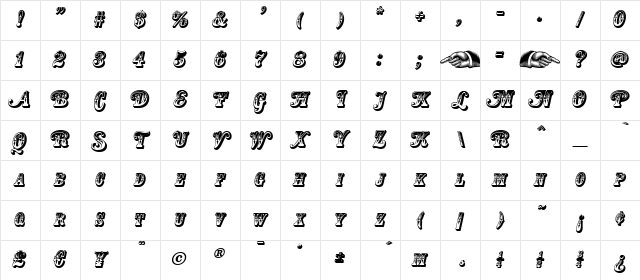
Complete Country Western Swing Title Regular glyph index. Displaying only characters natively supported by Country Western Swing Title Regular font.
Country Western Swing Title echoes the hand-painted signage and woodblock typography of the American frontier, with a warm, rugged personality.
Font Pairing: Combine Country Western Swing Title with a simple slab or neutral sans - period-accurate companions reinforce the vintage feel without competing for attention.
Pro Tip: Use Country Western Swing Title for short, impactful bursts of text - it shines in poster headlines and product names rather than extended copy.